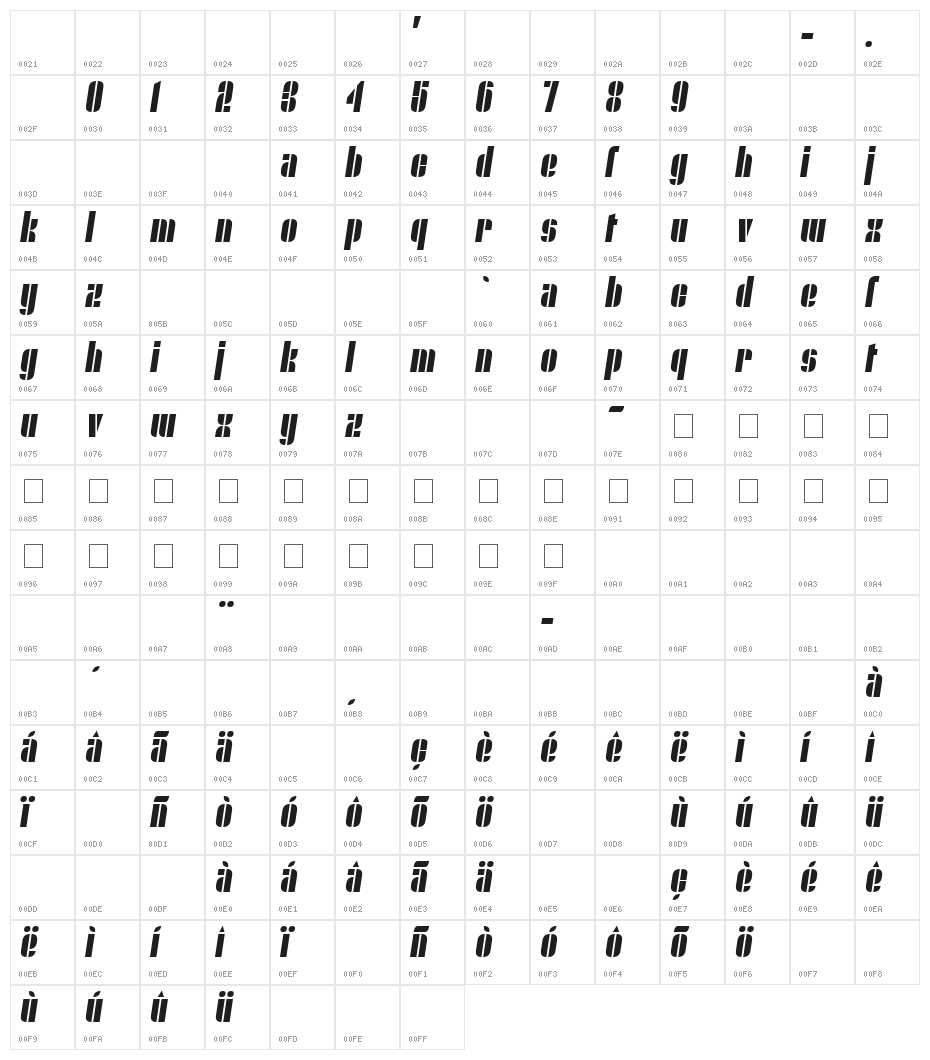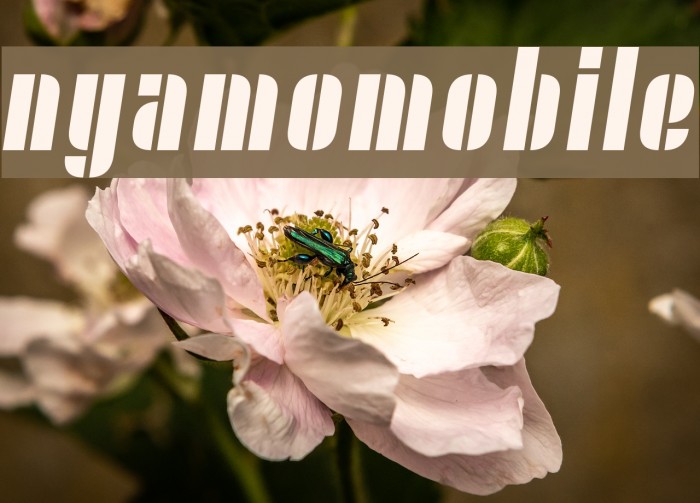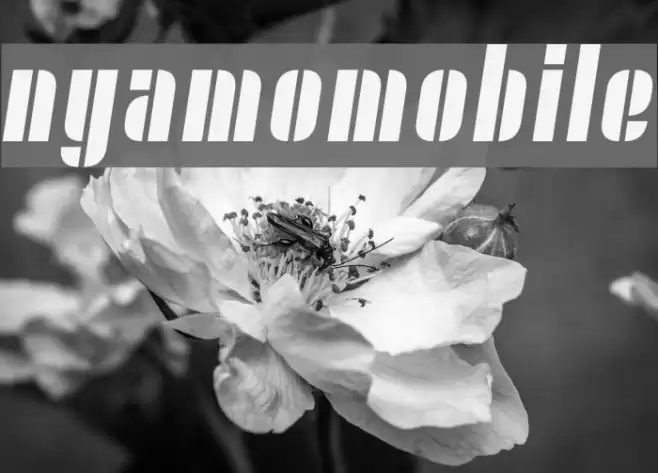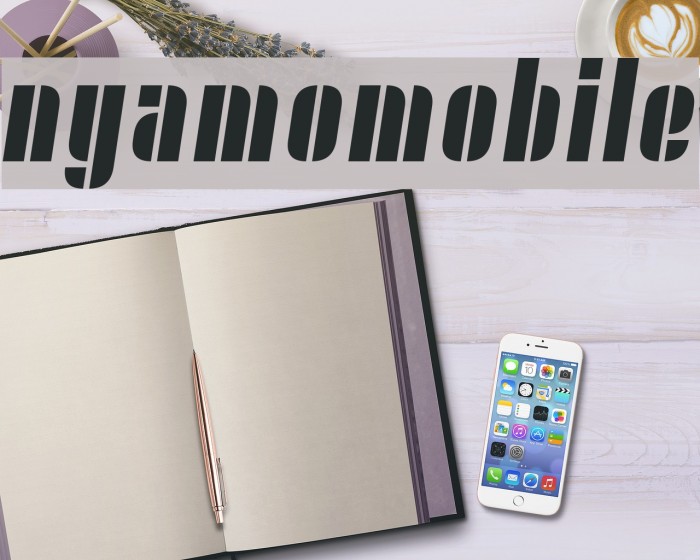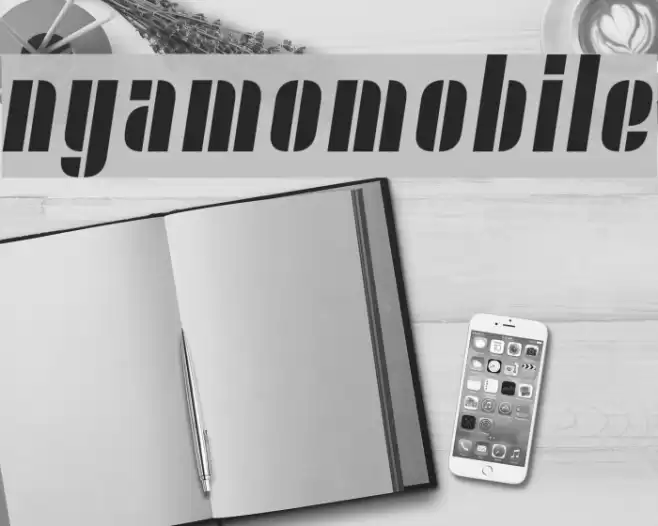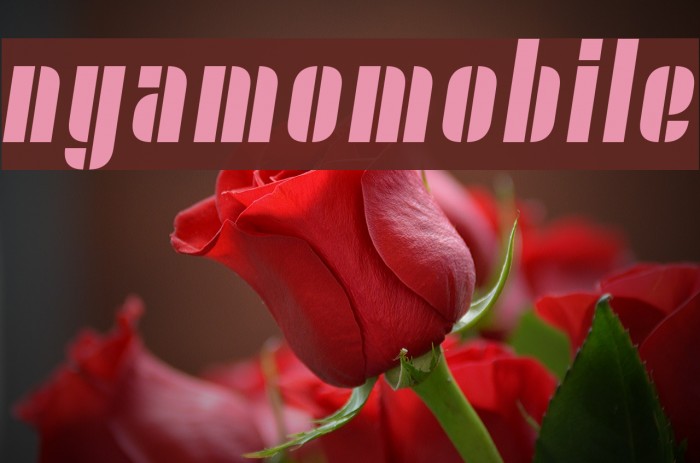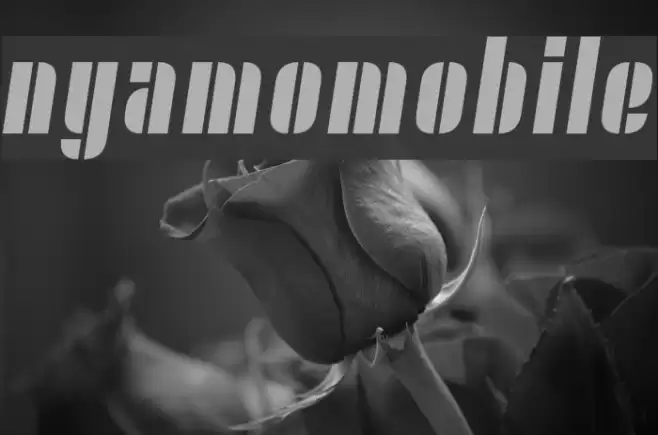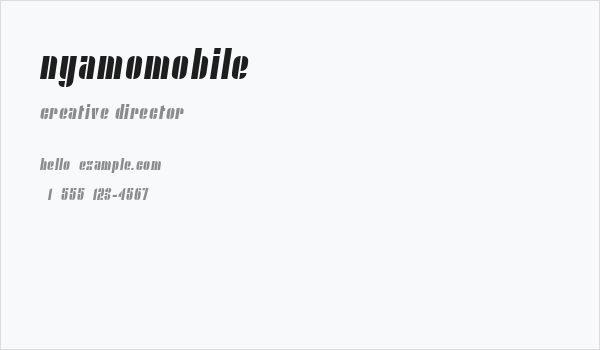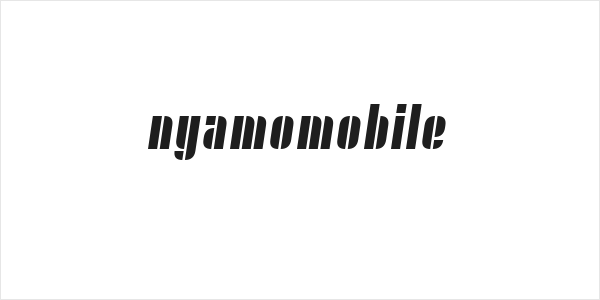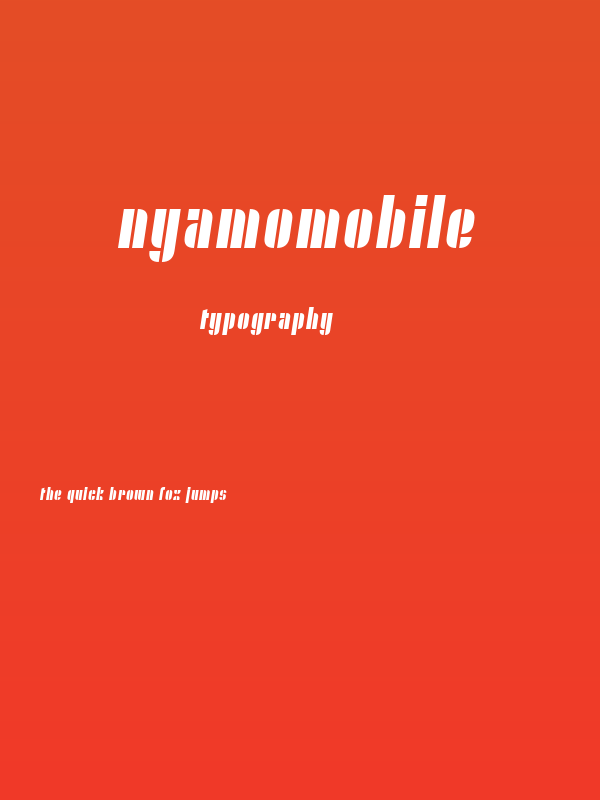
Nyamomobile Font
Nyamomobile Description
This font features a bold and dynamic style with a strong emphasis on vertical strokes. The characters are slanted, giving a sense of movement and energy. The design is geometric, with sharp angles and clean lines, creating a modern and impactful appearance. The uppercase and lowercase letters maintain a consistent style, while the numerals are distinct and easily readable. The special characters are integrated seamlessly, maintaining the overall aesthetic. This font is ideal for projects that require a bold statement and a contemporary look.
| Proposed Projects | Ideal for branding, posters, headlines, and any design requiring a bold, modern impact. |